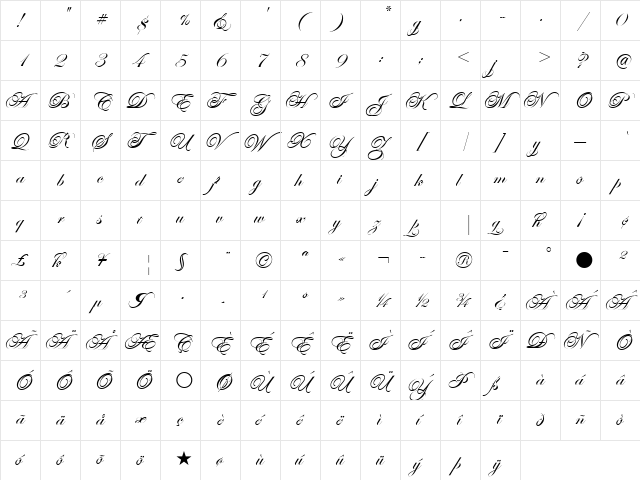
Edwardian Script ITC Regular
| Foundry | by URW |
Design Context for Edwardian Script ITC Typeface
Edwardian Script ITC brings a calligraphic fluidity to the page — its connecting strokes and expressive curves give it an unmistakably human quality.